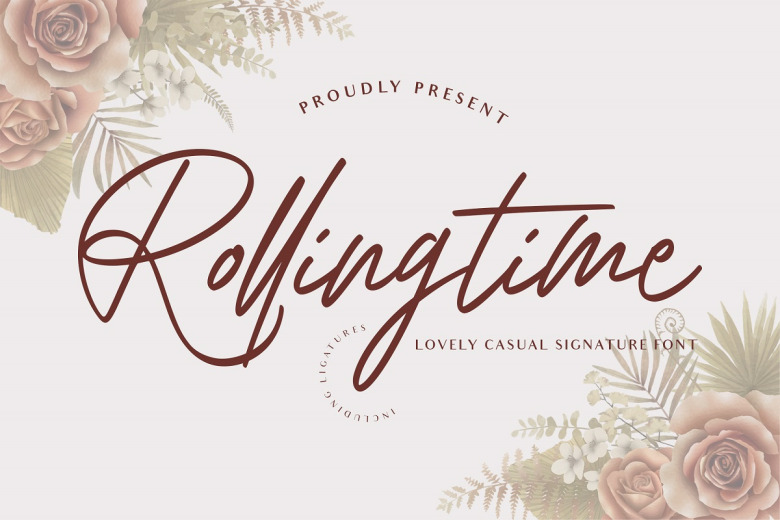
Rolling Time Font
Rolling Time Handwritten Font is a lovely modern signature font. It can be used for various purposes such as logos, wedding invitations, headings, and so much more. This font is PUA encoded which means you can access all of the glyphs and swashes with ease!
Rolling Time Handwritten Font